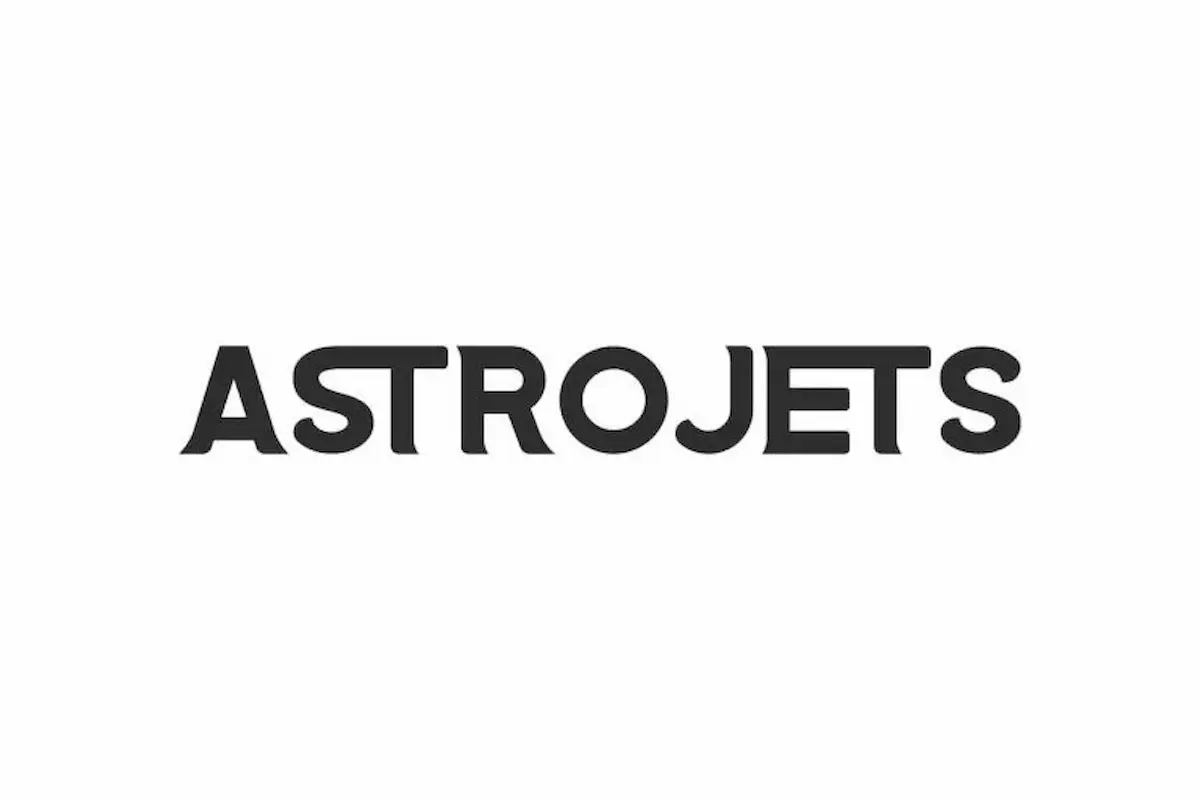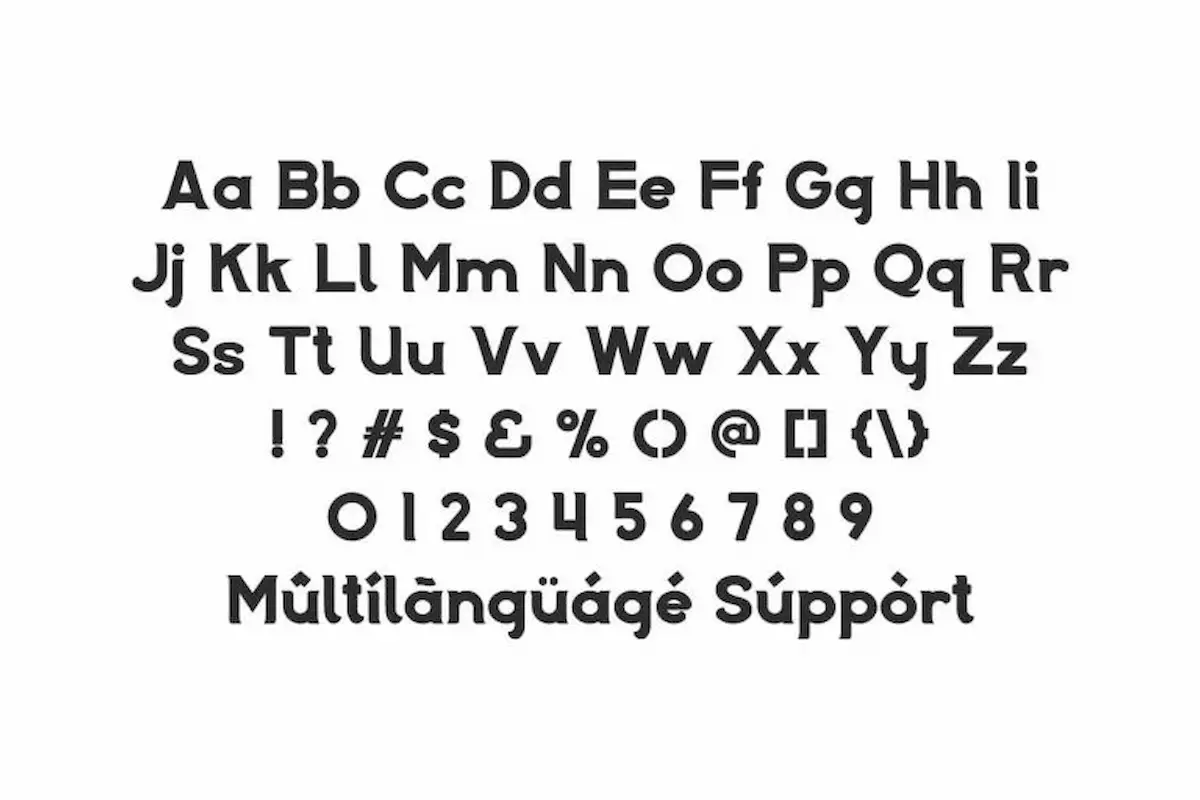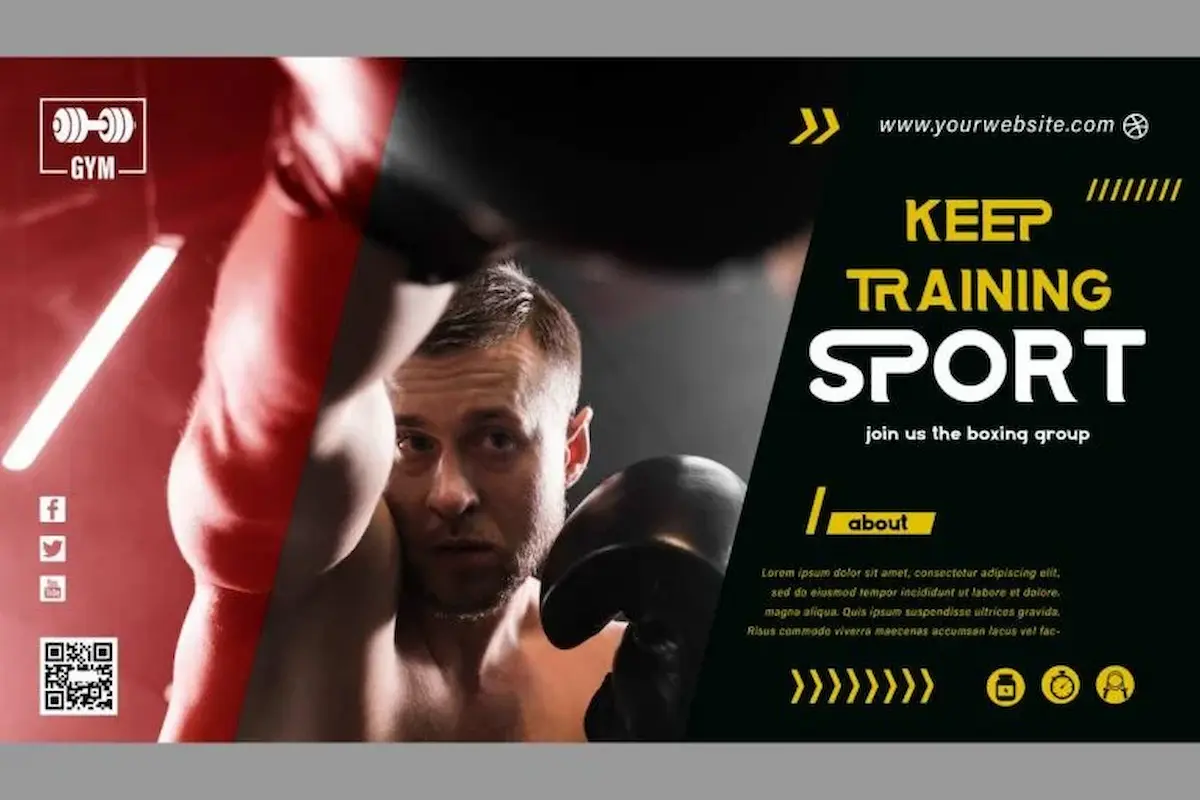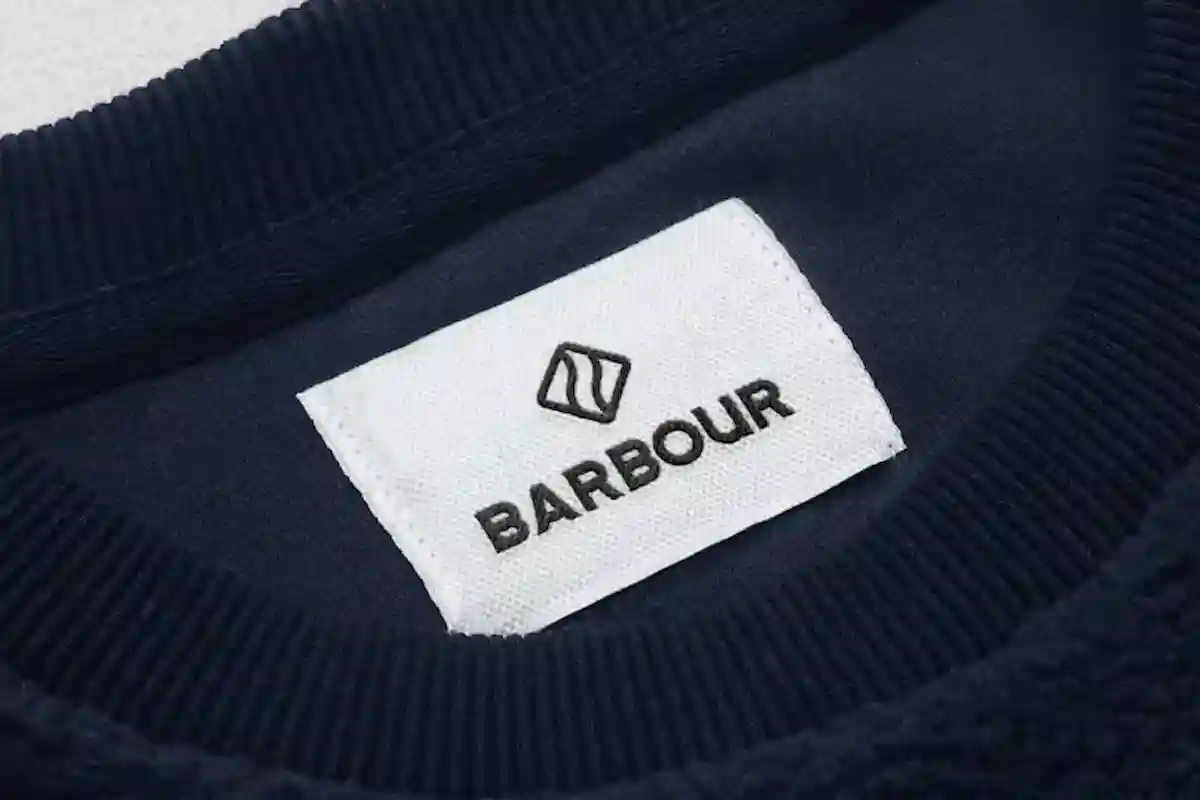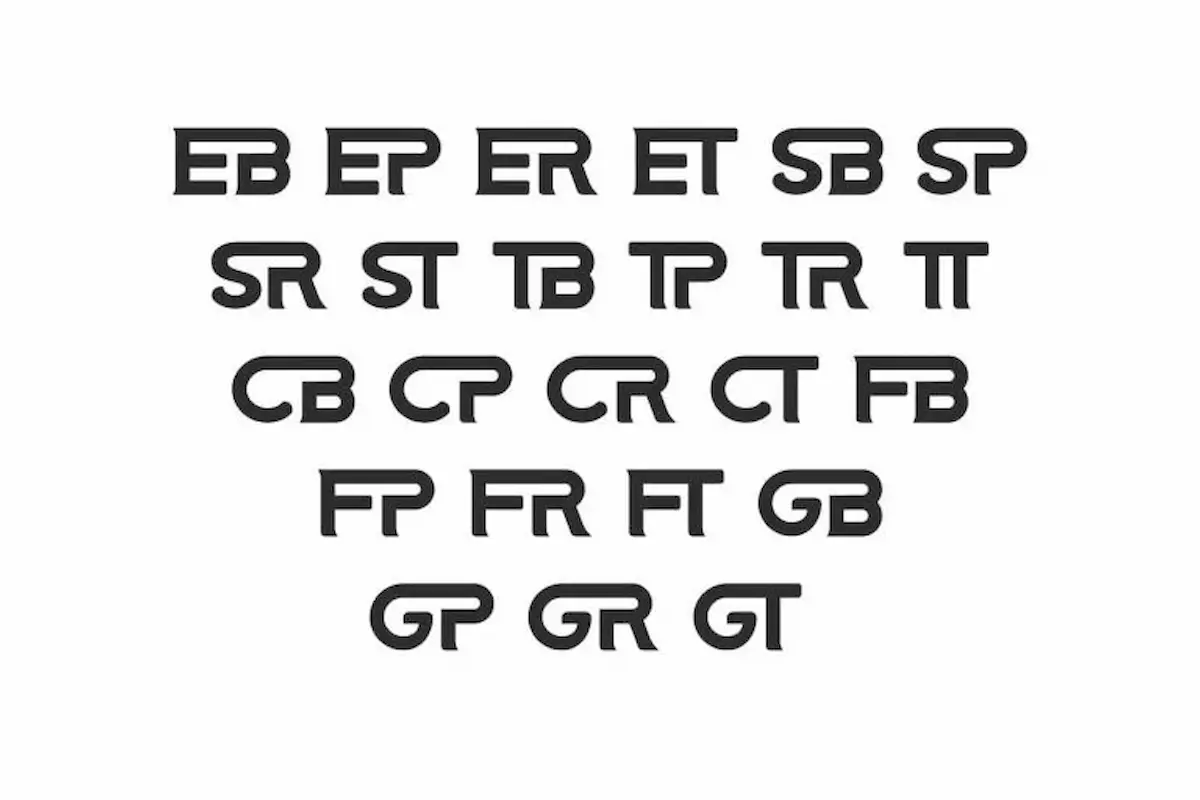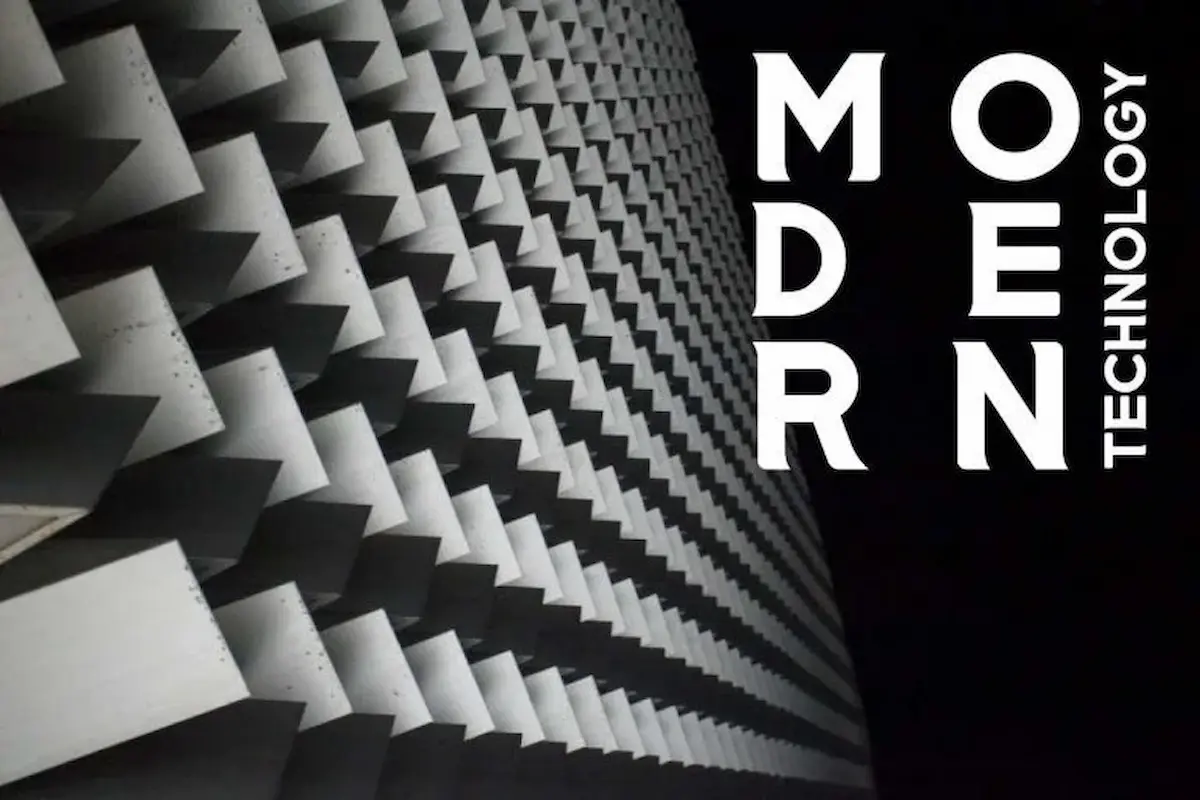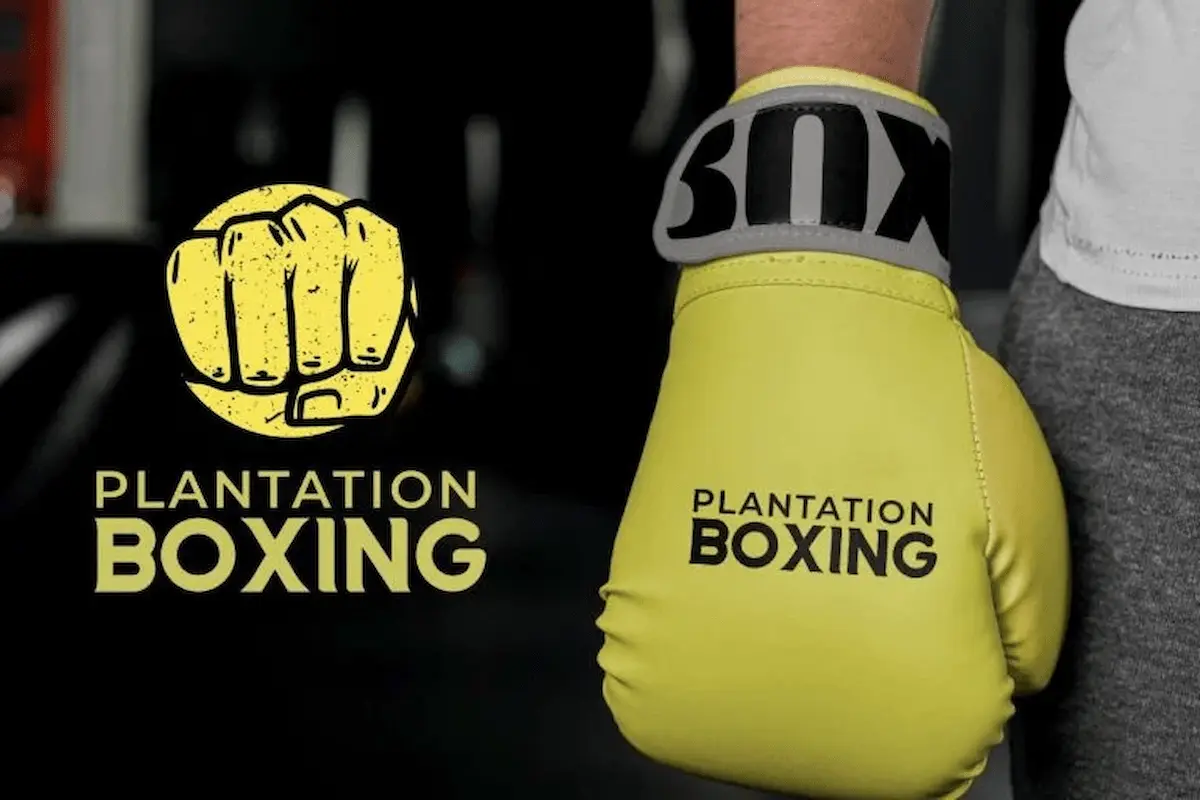
Astrojets Font is a modern display sans font by NihStudio. The font has a modern stylish style. It will great for games, sports, startup, techno, spaces related, gadget etc.